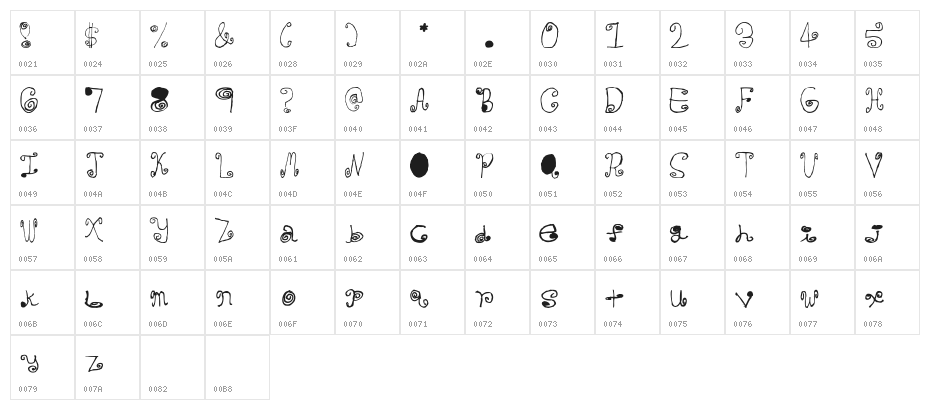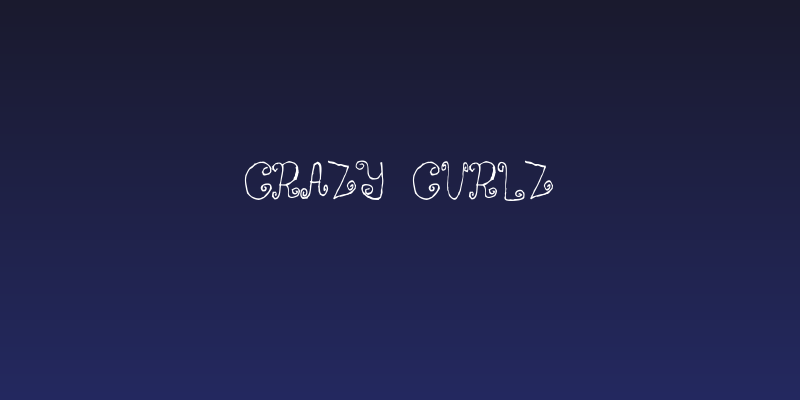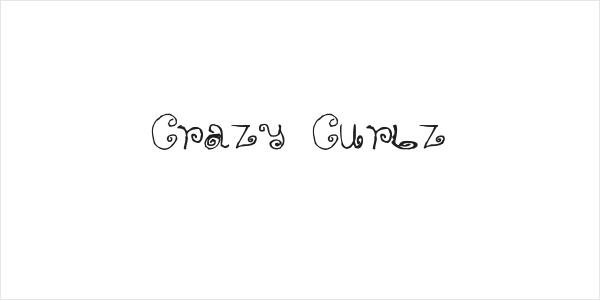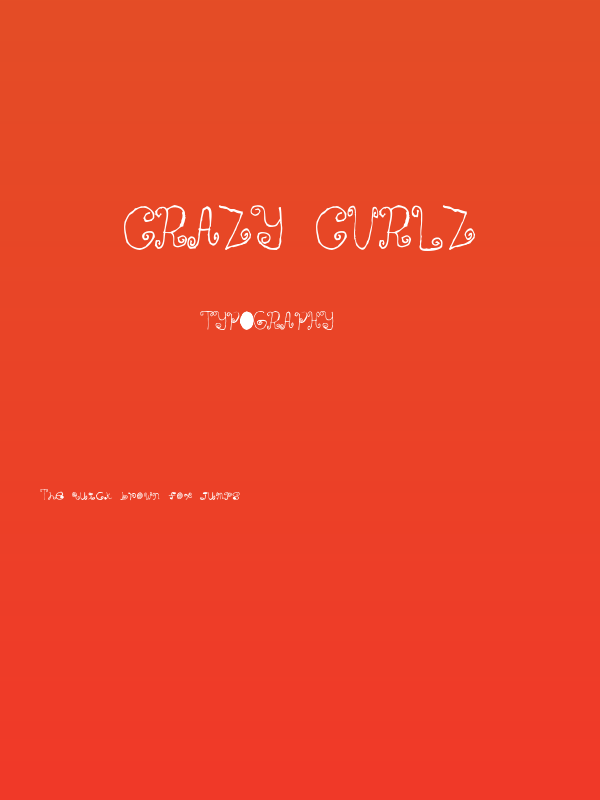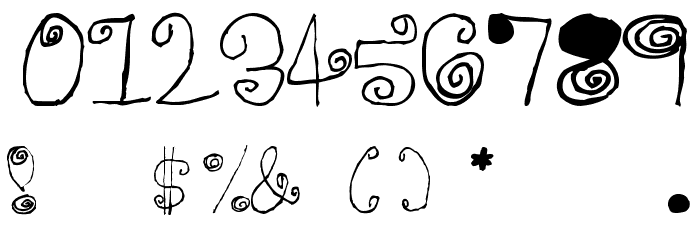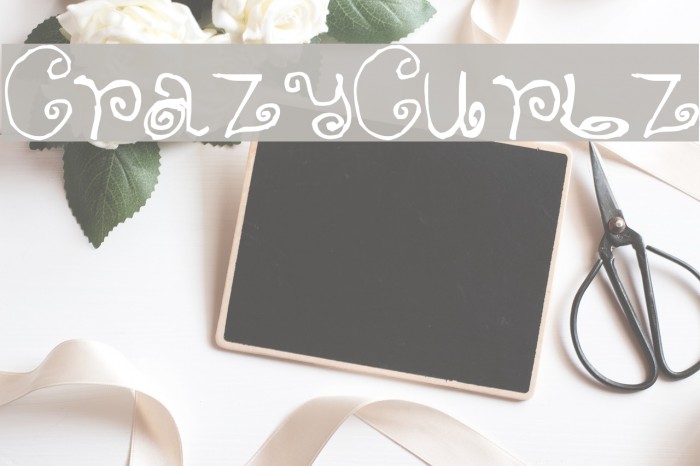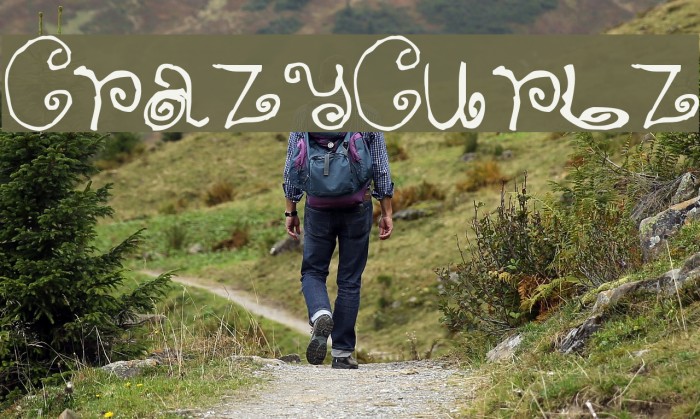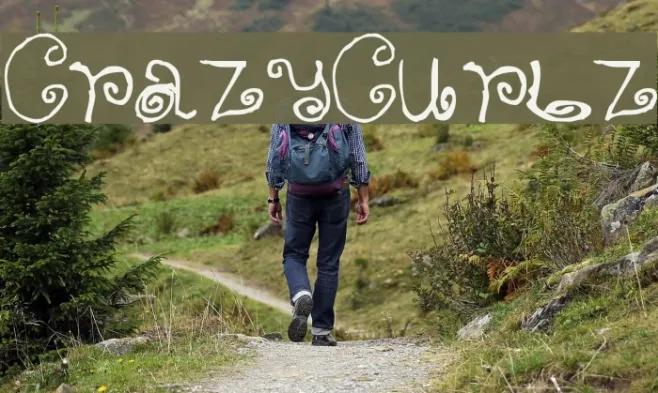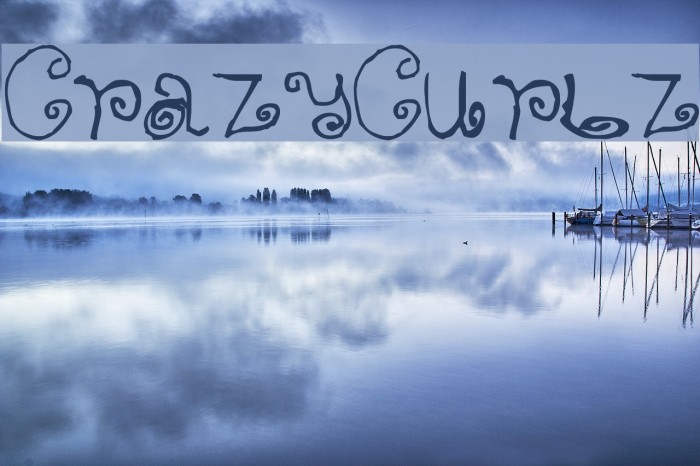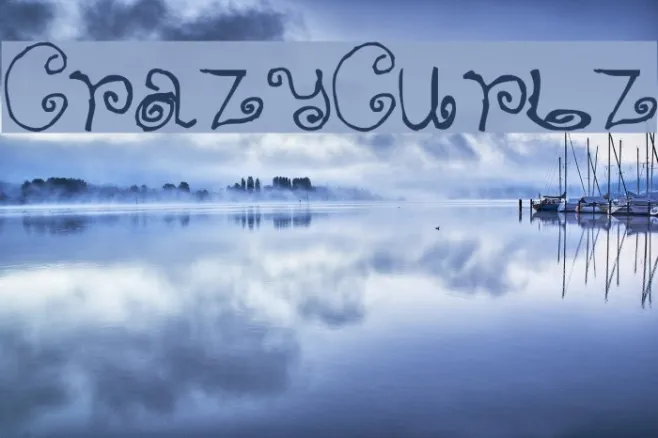
Crazy Curlz Font
Crazy Curlz Description
This whimsical and playful font features exaggerated curls and swirls, giving each character a unique and artistic flair. The uppercase letters are bold and eye-catching, with intricate loops that add a sense of movement and fun. The lowercase letters maintain this playful style, with some characters featuring bold, filled-in sections that create a striking contrast. Numbers and special characters are equally decorative, with spirals and curls that enhance the overall whimsical theme. This font is ideal for projects that require a touch of creativity and fun, making it perfect for children's books, playful invitations, or artistic branding.
| Proposed Projects | Children's books, playful invitations, artistic branding, creative posters. |